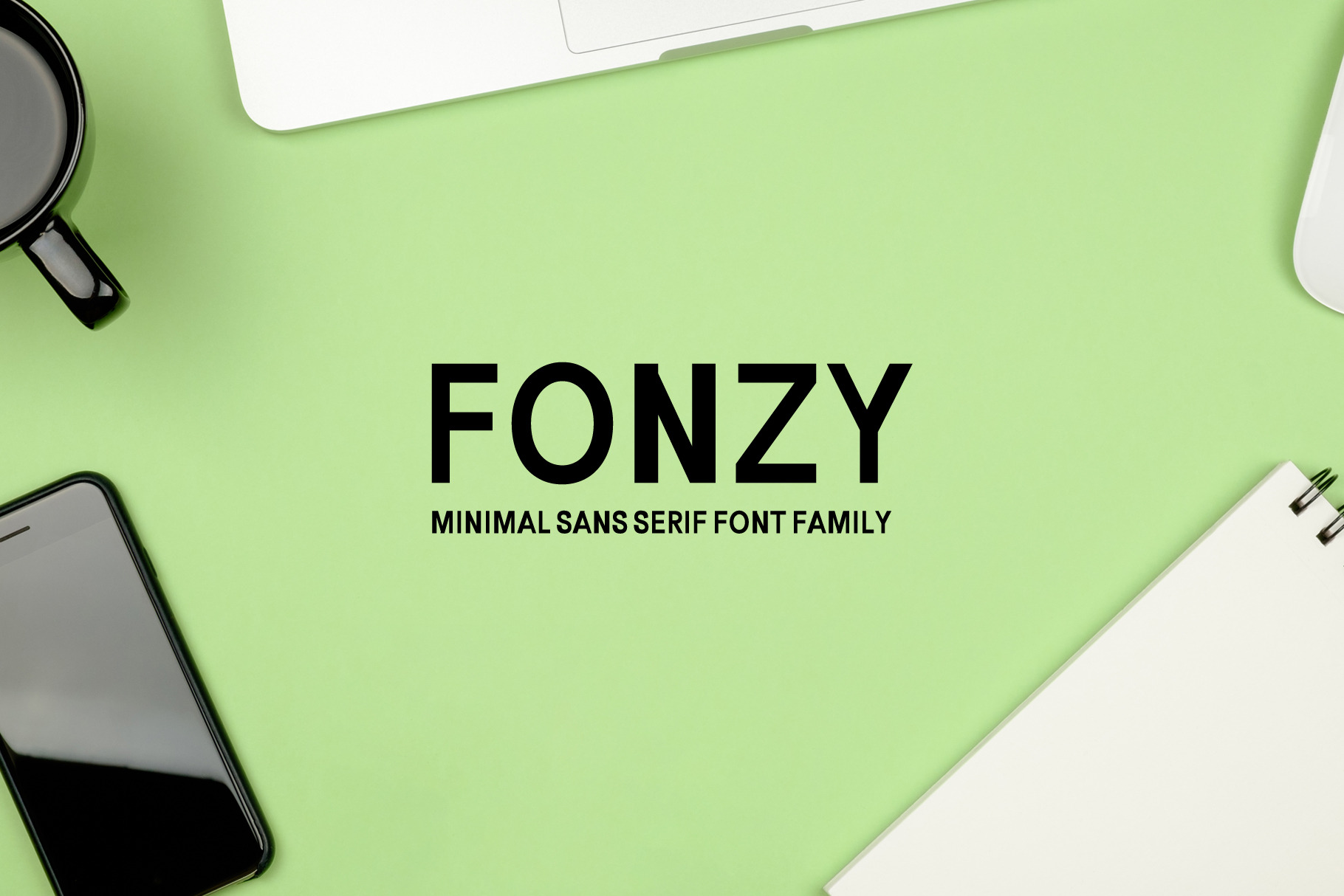
Fonzy Minimal Sans Serif Font Pack
Fonzy is a clean vibrant sans serif 5 font family pack. This font has a strong personality, that makes it perfect for use in the headline, wedding invitation, greeting cards, T-shirt, branding and logo projects, merchandise, social media posts, product packaging, or any design that you create.
- Font Weight: Regular, Thin, Light, Outline and Bold
Fonzy Font Features:
- Uppercase Multilingual Letters
- Lowercase Multilingual Letters
- Numbers and Punctuation
- Non English Characters ( Latin Supplement + Latin Extended A)